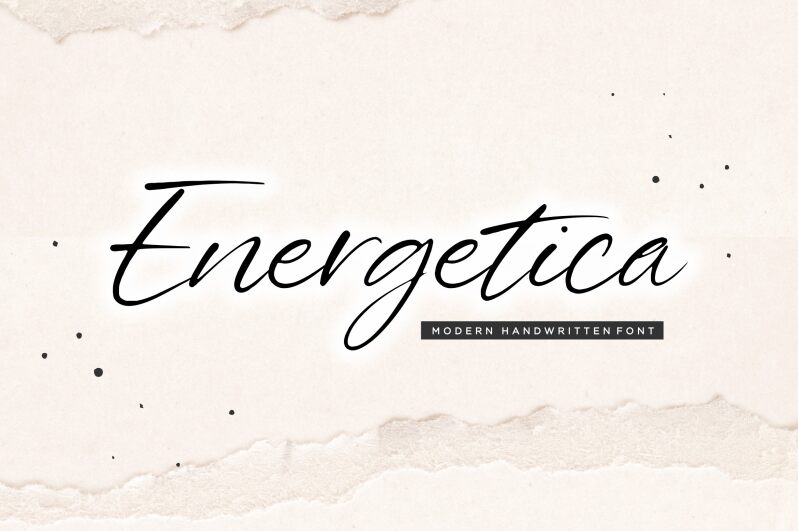
Energetica
Energetica, the latest font from Balpirick Studio, is perfect for projects that require a personal touch. With its light weight and handwritten style, Energetica gives your designs a warm and approachable feel. This font is ideal for invitations, greeting cards, social media graphics, and more. Let Energetica add a touch of personality to your next project.